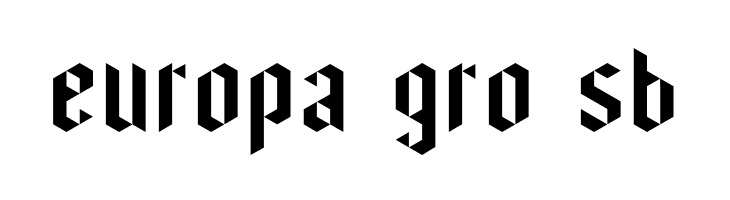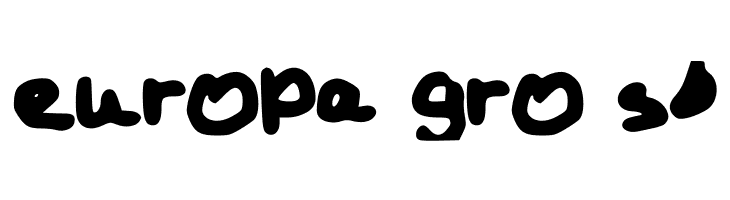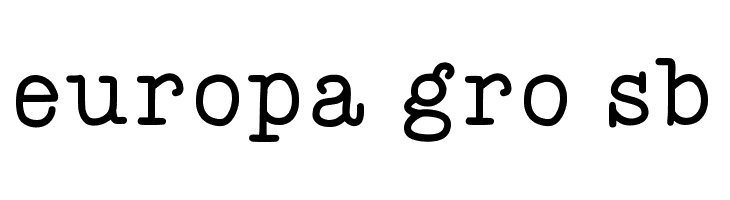
YoureInvited-Heavy Font
An elegant script font with flowing, cursive letterforms and sophisticated style.
YoureInvited Font
An elegant script font with flowing, cursive style and sophisticated flourishes.
YoureGone-Regular Font
A bold, rounded font with a modern and playful style.
I have been waiting for youRegular Font
A Dark Wedding Font
A dramatic Gothic script with sharp, angular lines and intricate detailing.
YoureGone-Italic Font
A bold, rounded, and italic font with a modern and dynamic style.
You're So Cool Font
A playful, hand-drawn font with rounded, smooth strokes and a whimsical style.
YoureSoCool Font
A playful handwritten font with smooth, rounded edges and a casual style.
Typewriter - Remington RIVIERA Font
A vintage, distressed typewriter-style font with a bold, textured appearance.
Youre Romantic Serif Font
A bold, high-contrast serif font with sharp, angular serifs.
Youre Romantic Script Font
A romantic and elegant script font with flowing, cursive strokes.
YourePrincessRegular Font
A playful, whimsical handwritten font with flowing strokes and a casual charm.
Youre Princess Font
A playful, handwritten font with flowing, whimsical letterforms.
YoureGone-Regular Font
A bold, rounded, and modern font with a futuristic style.